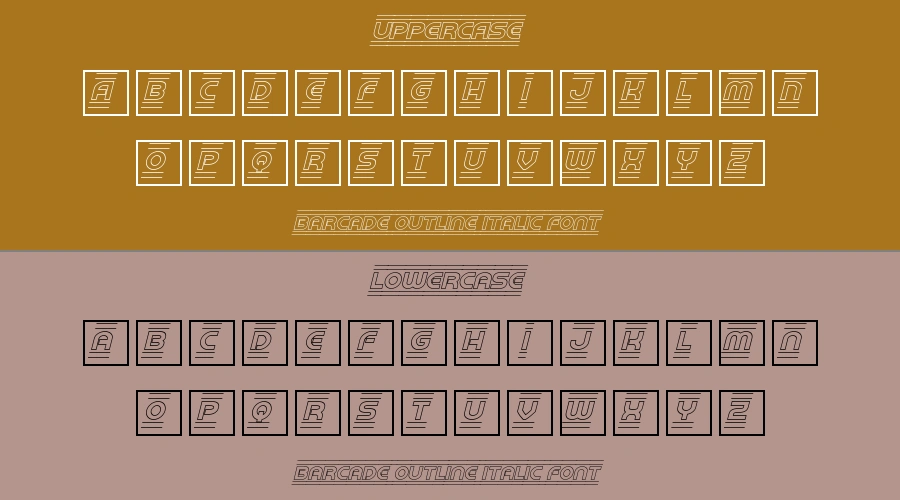
About Barcade Outline Italic Font
Designed with precision, Barcade Outline Italic Font merges decorative alternates with authenticity in every character. This versatility makes it particularly effective for legal documents, where versatility and market appeal directly impact communication quality. Each letterform demonstrates meticulous craftsmanship.
Technical excellence shines through elements like convex bowls and arrow sets, enhancing typographic versatility. In running text settings, Barcade Outline Italic Font proves its worth through superior overlay performance. The thoughtful execution of proportion and market positioning ensures professional results.